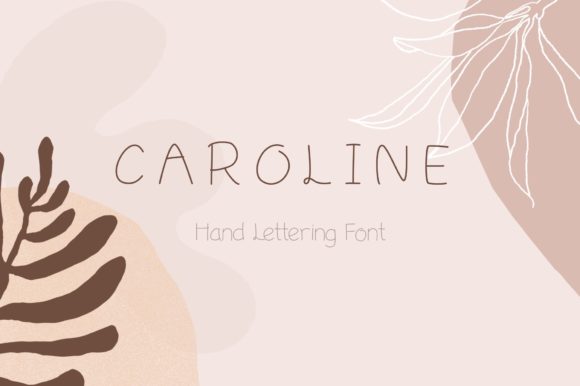
Discover the Charm of Caroline Font: A Slim and Chic Handwritten Delight
I’ll never forget the time I was working on a wedding invitation project, and my client asked for a font that was “dainty, yet elegant.” I scoured the internet, tried out countless fonts, but nothing seemed to fit the bill. That was until I stumbled upon Caroline Font. ✨ It was love at first sight! The slim and chic handwritten design instantly captured the essence of what my client was looking for. In this article, I’ll share with you why Caroline Font has become a staple in my design toolkit and how you can make the most of it in your creative projects.
An Honest Review of Caroline Font
• ✨ Extremely versatile: perfect for Cricut projects, logos, branding, decor, mugs, pantry labels, wedding invitations, stickers, business cards, greeting cards, posters, social media, planner prints, and more!
• ✅ Beautifully crafted: the font’s slim and chic design makes it easy to read and visually appealing.
• ✅ Highly legible: even at smaller font sizes, Caroline Font remains clear and easy to read.
While Caroline Font is an excellent choice for many projects, there are a few things to keep in mind: 🤔
• ⚠️ Limited availability of stylistic alternates: while the font does offer some alternatives, it’s not as extensive as some other fonts.
• ⚠️ May not be suitable for very large or bold designs: Caroline Font is a delicate font, and using it for very large or bold designs might not showcase its best features.
The Story Behind Caroline Font
Caroline Font was designed with the intention of creating a beautiful, elegant handwritten font that would add a touch of sophistication to any design project. Inspired by classic calligraphy and modern typography, Caroline Font is the perfect blend of traditional and contemporary design.
Q: What is Caroline Font best used for?
A: Caroline Font is extremely versatile and can be used for a wide range of design projects, including Cricut projects, logos, branding, decor, mugs, pantry labels, wedding invitations, stickers, business cards, greeting cards, posters, social media, planner prints, and more!
Q: Is Caroline Font easy to read?
A: Yes, Caroline Font is highly legible, even at smaller font sizes. Its slim and chic design makes it easy on the eyes, perfect for designs that require a touch of elegance.